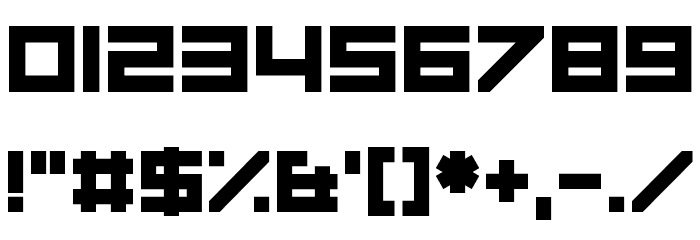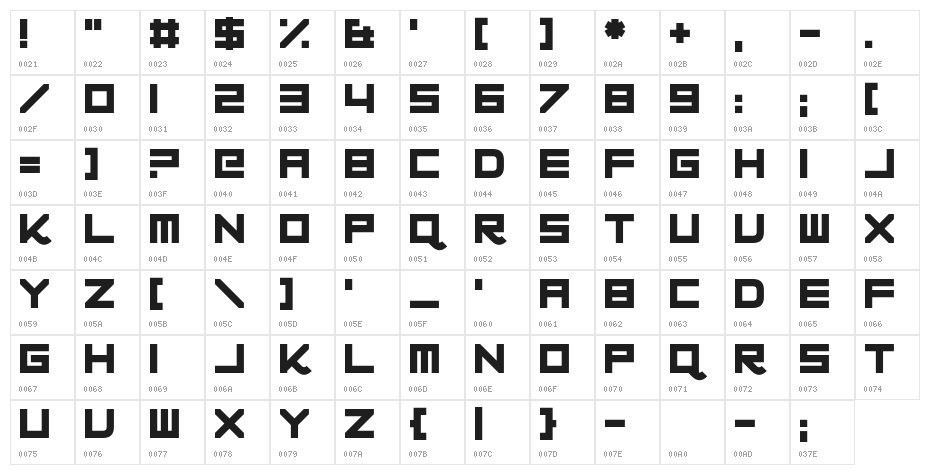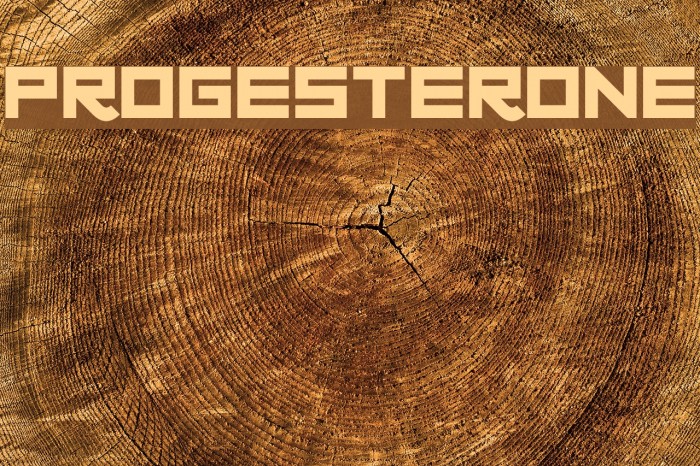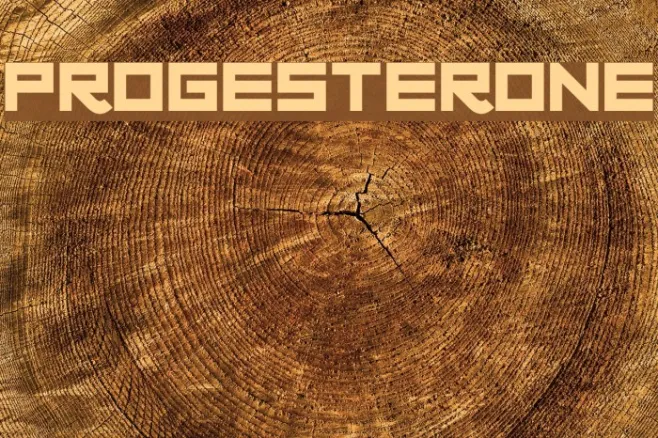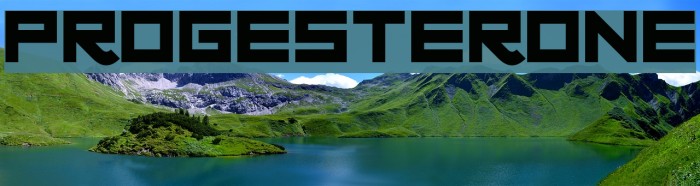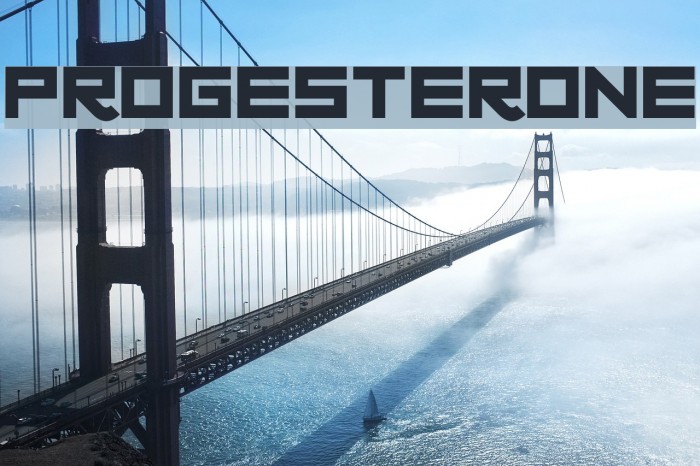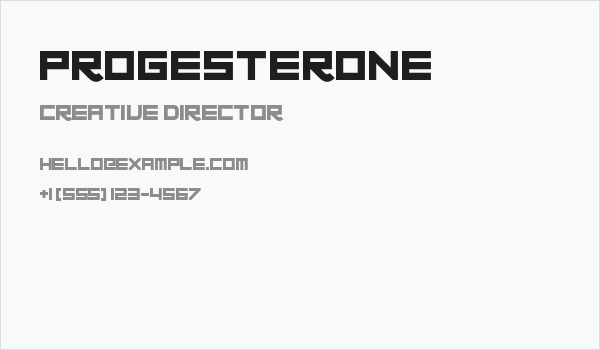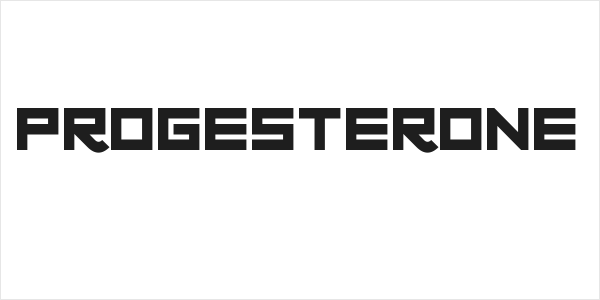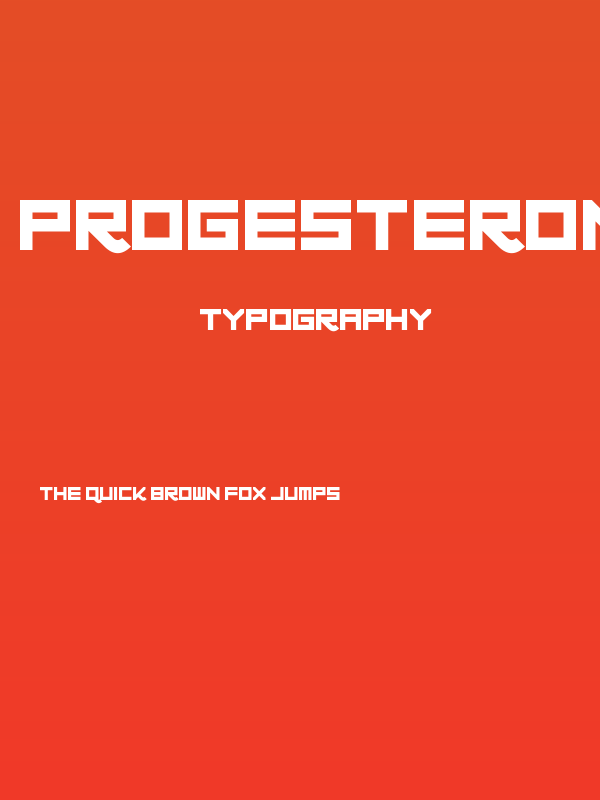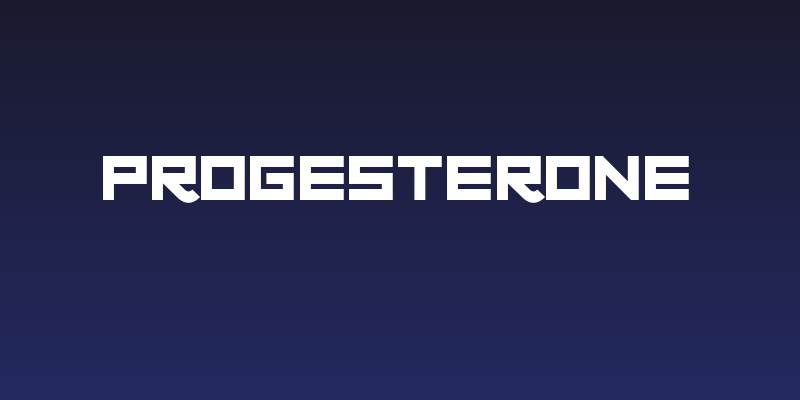
Progesterone Font
Progesterone Description
This font features a bold, geometric design with a futuristic and industrial aesthetic. The characters are constructed with thick, uniform strokes, giving them a strong and impactful presence. The angular shapes and sharp edges contribute to a modern, tech-inspired look. The uppercase and lowercase letters maintain a consistent style, with the lowercase mirroring the uppercase in form. Numbers and special characters are designed to match the bold and structured appearance of the alphabet, ensuring a cohesive look across all text. The font's design is highly legible, making it suitable for various applications where a strong visual impact is desired.
Proposed ProjectsIdeal for technology branding, video game titles, sci-fi movie posters, and modern digital interfaces.